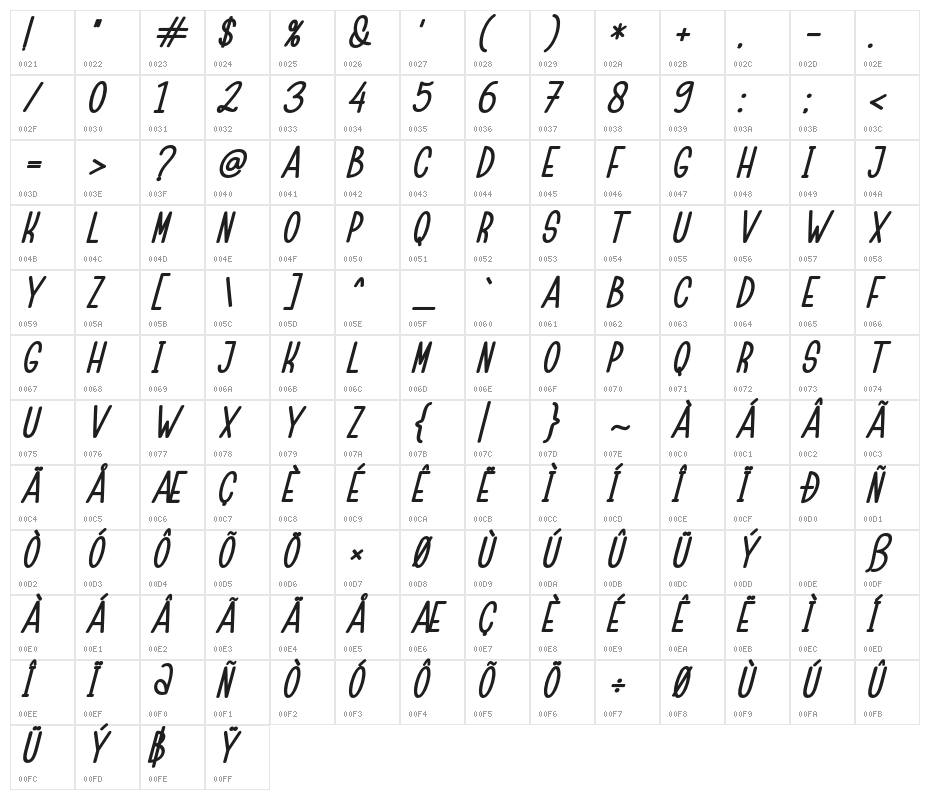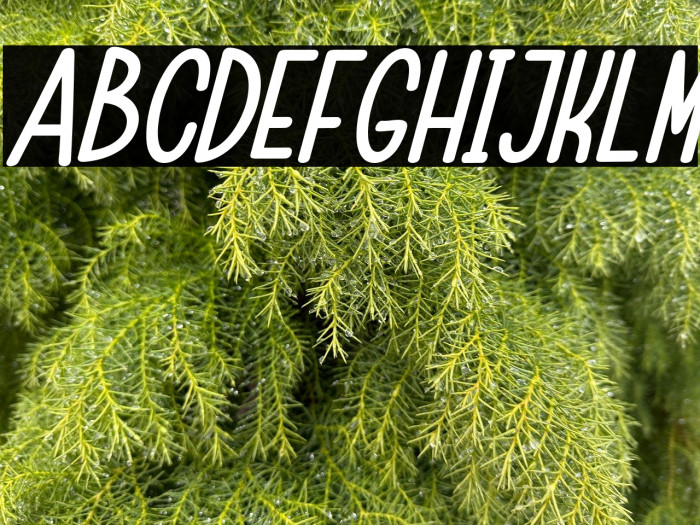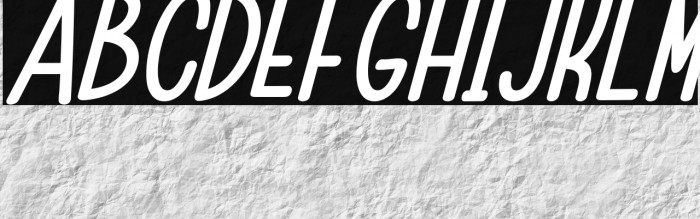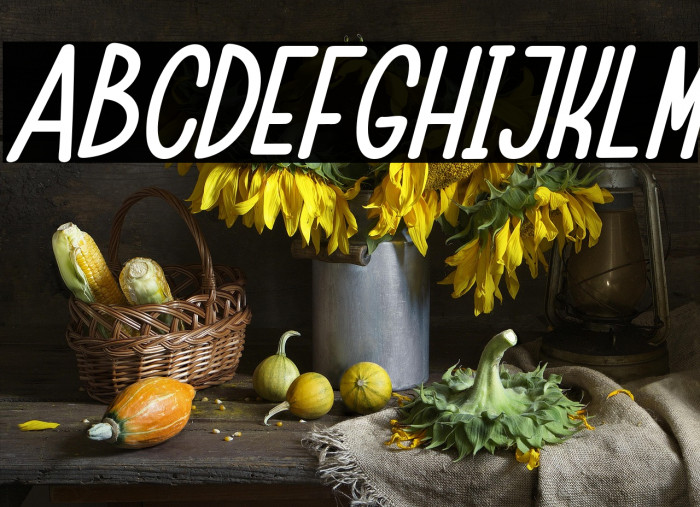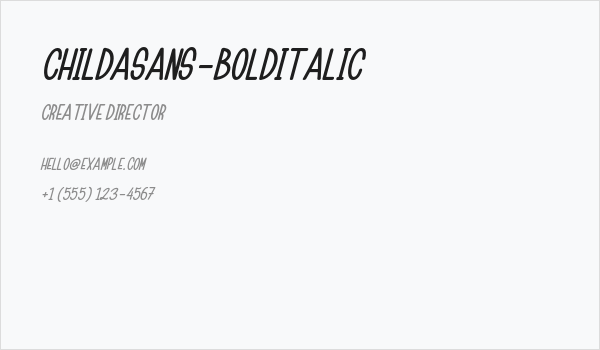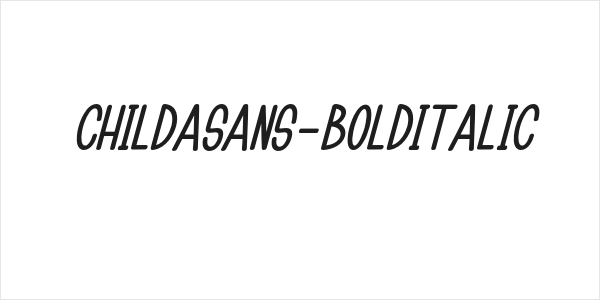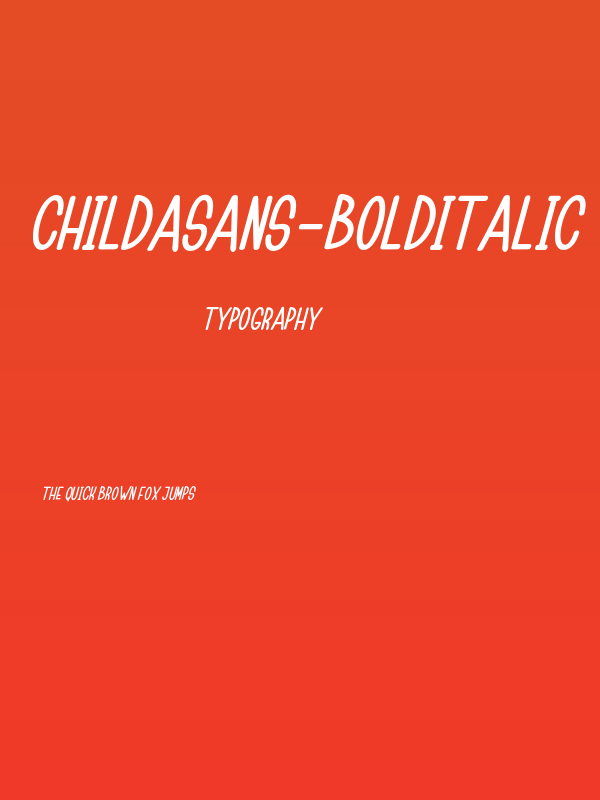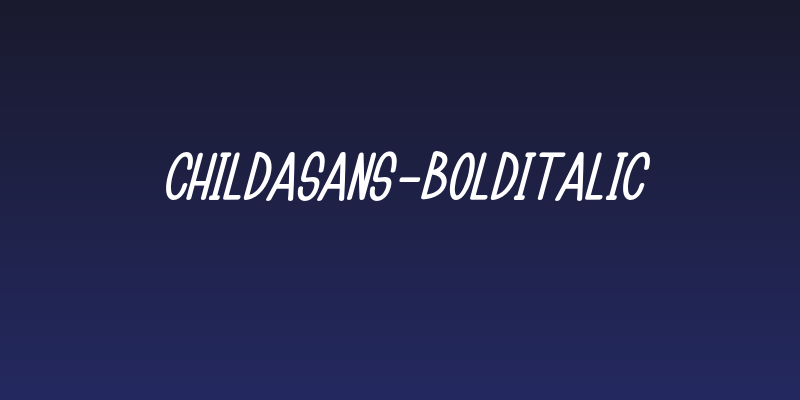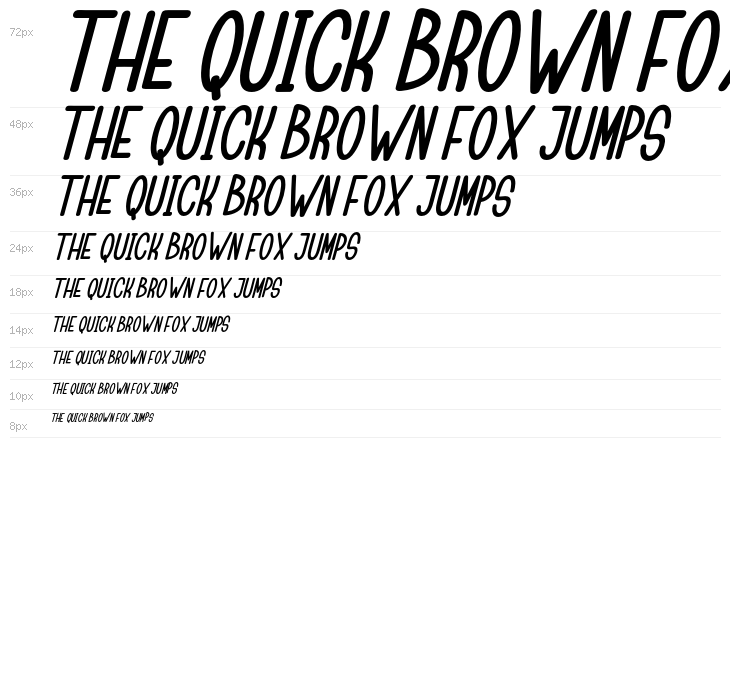
ChildaSans-BoldItalic Font
ChildaSans-BoldItalic Description
This font features a bold and italicized style with a playful and energetic appearance. The letters are slightly slanted, giving a sense of motion and dynamism. The strokes are thick and consistent, providing a strong visual impact. The characters are well-defined with smooth curves and a modern touch, making it suitable for attention-grabbing designs. The numbers and special characters maintain the same bold and italicized style, ensuring uniformity across all elements.
| Proposed Projects | Ideal for branding, advertising, posters, and any project needing a lively and bold typeface. |